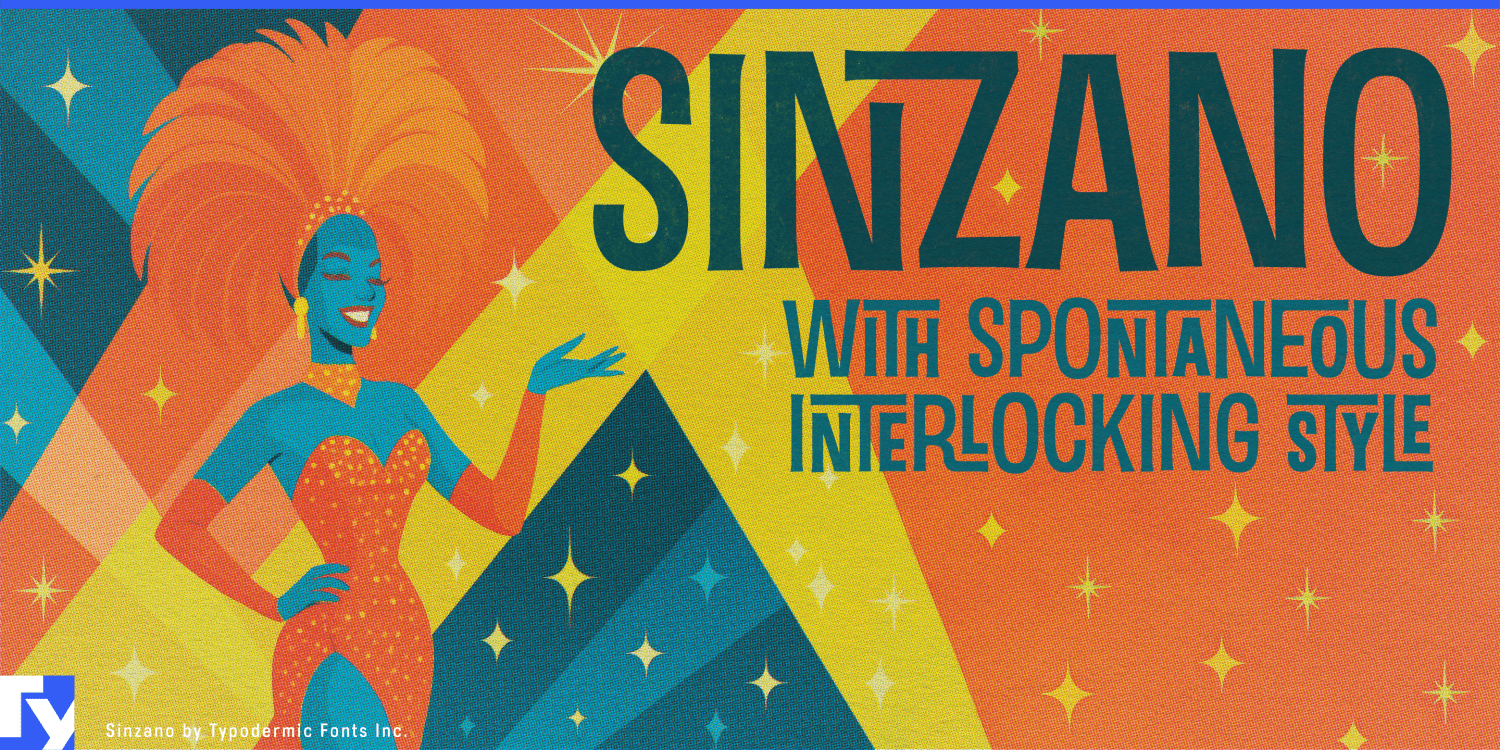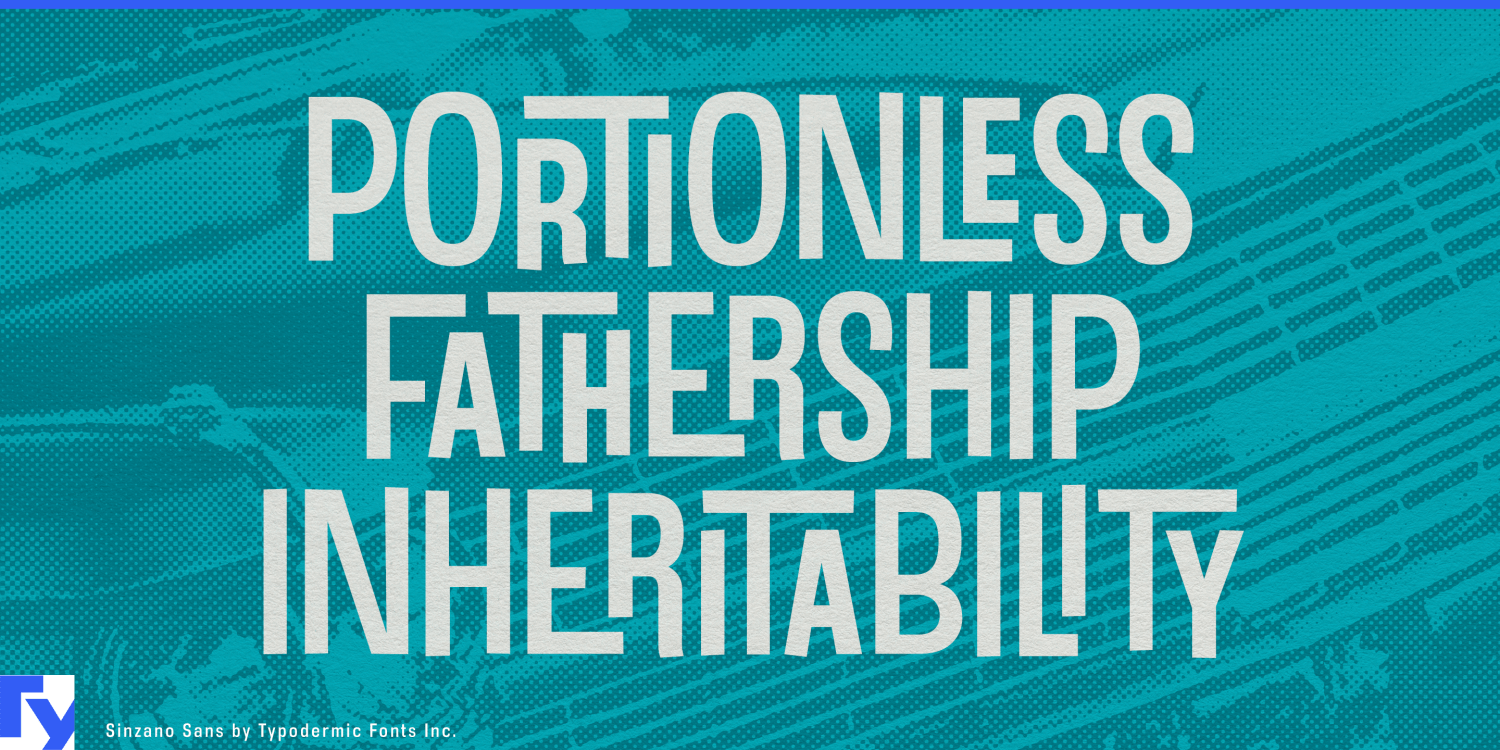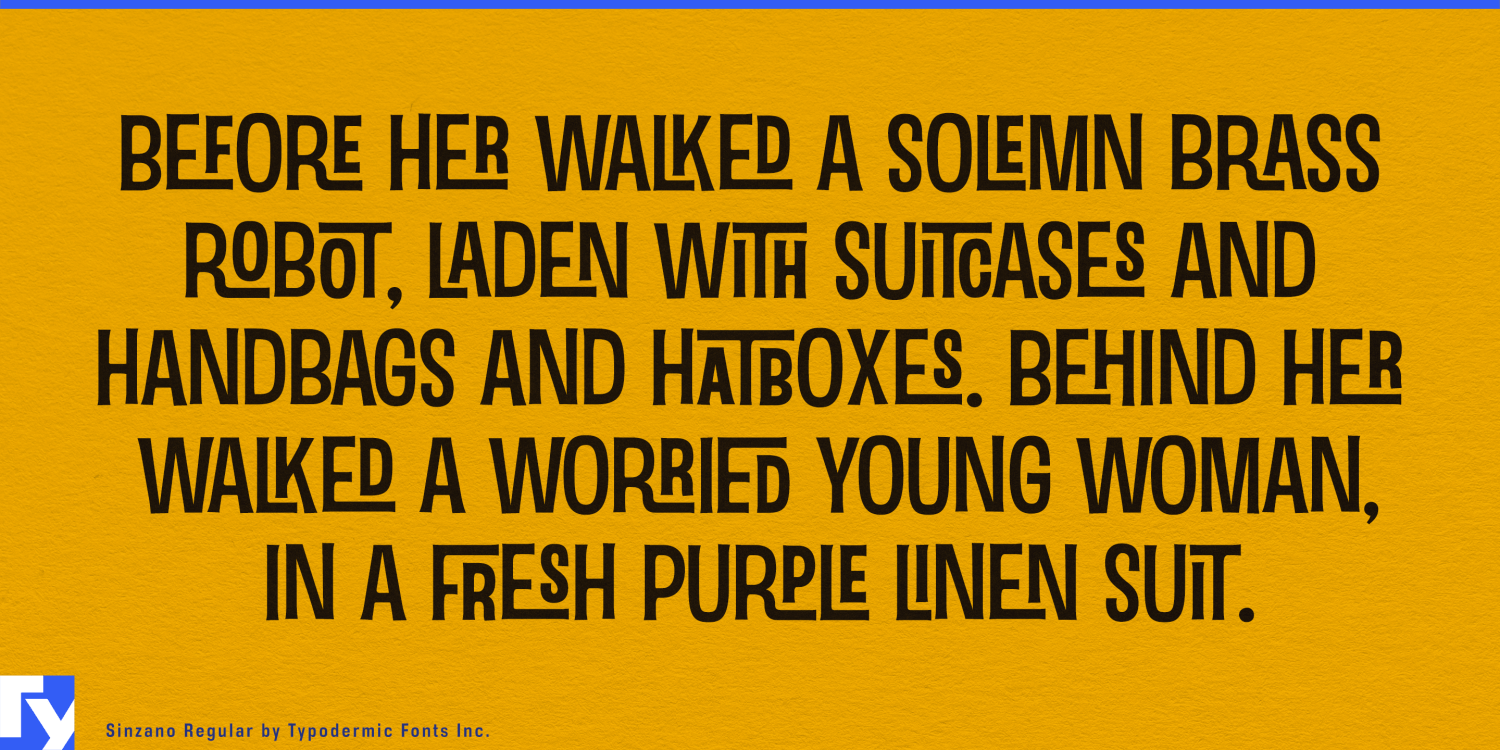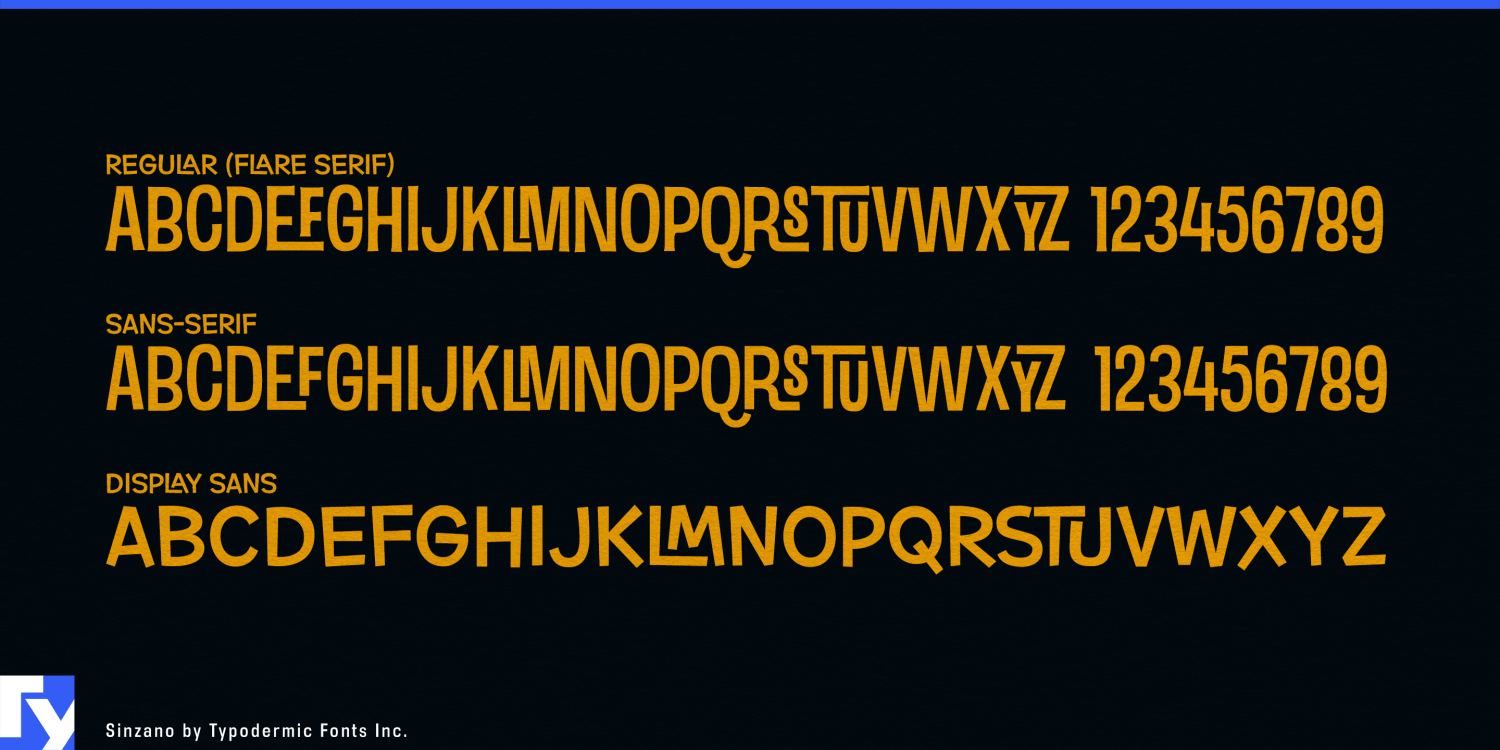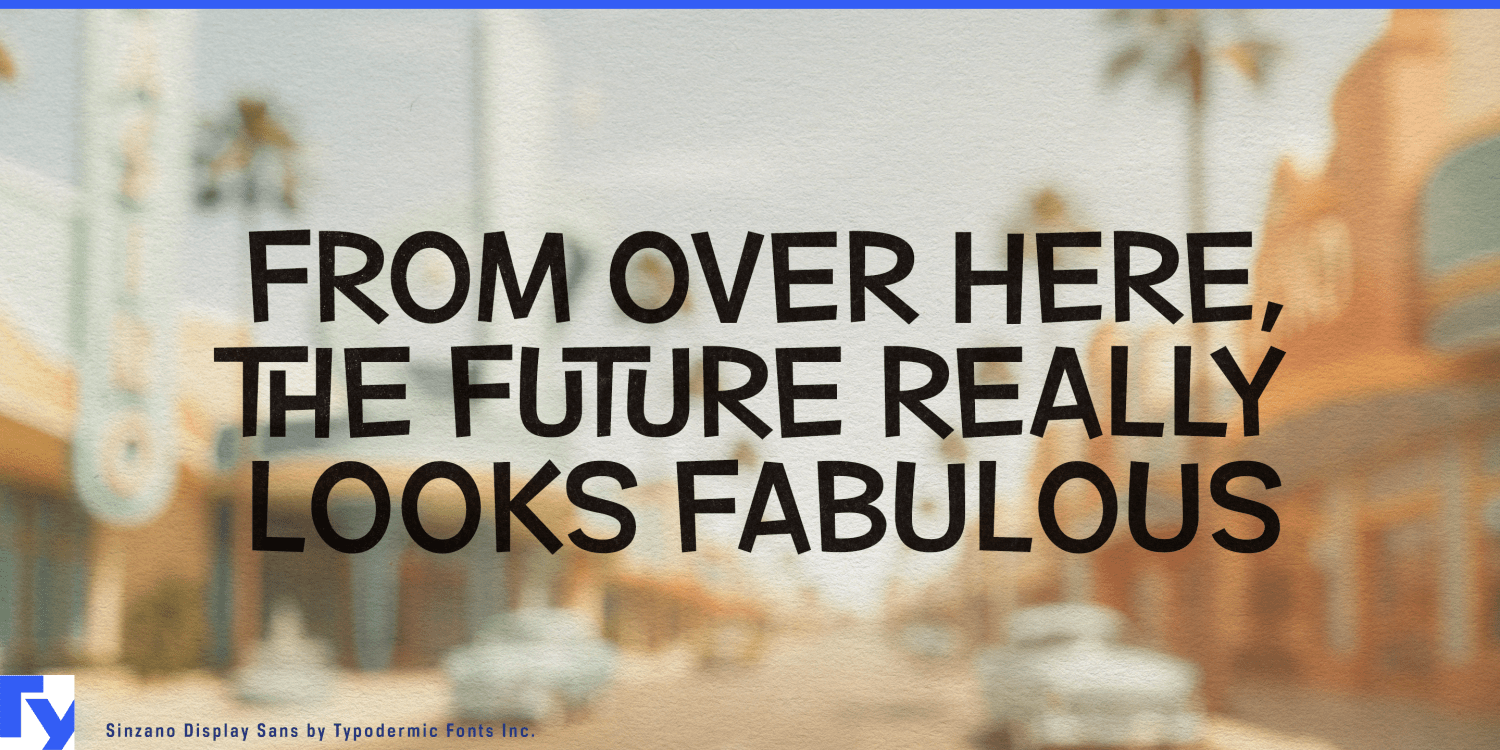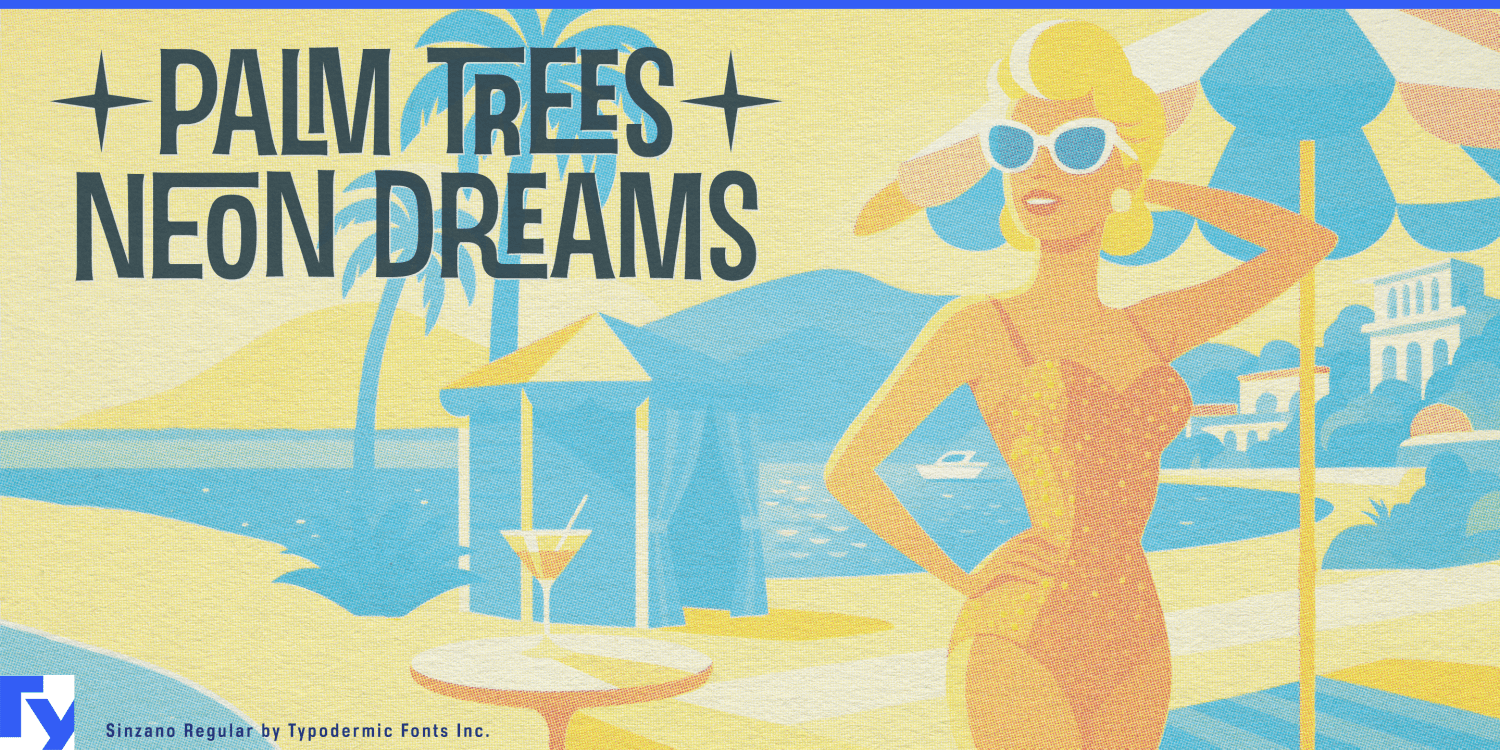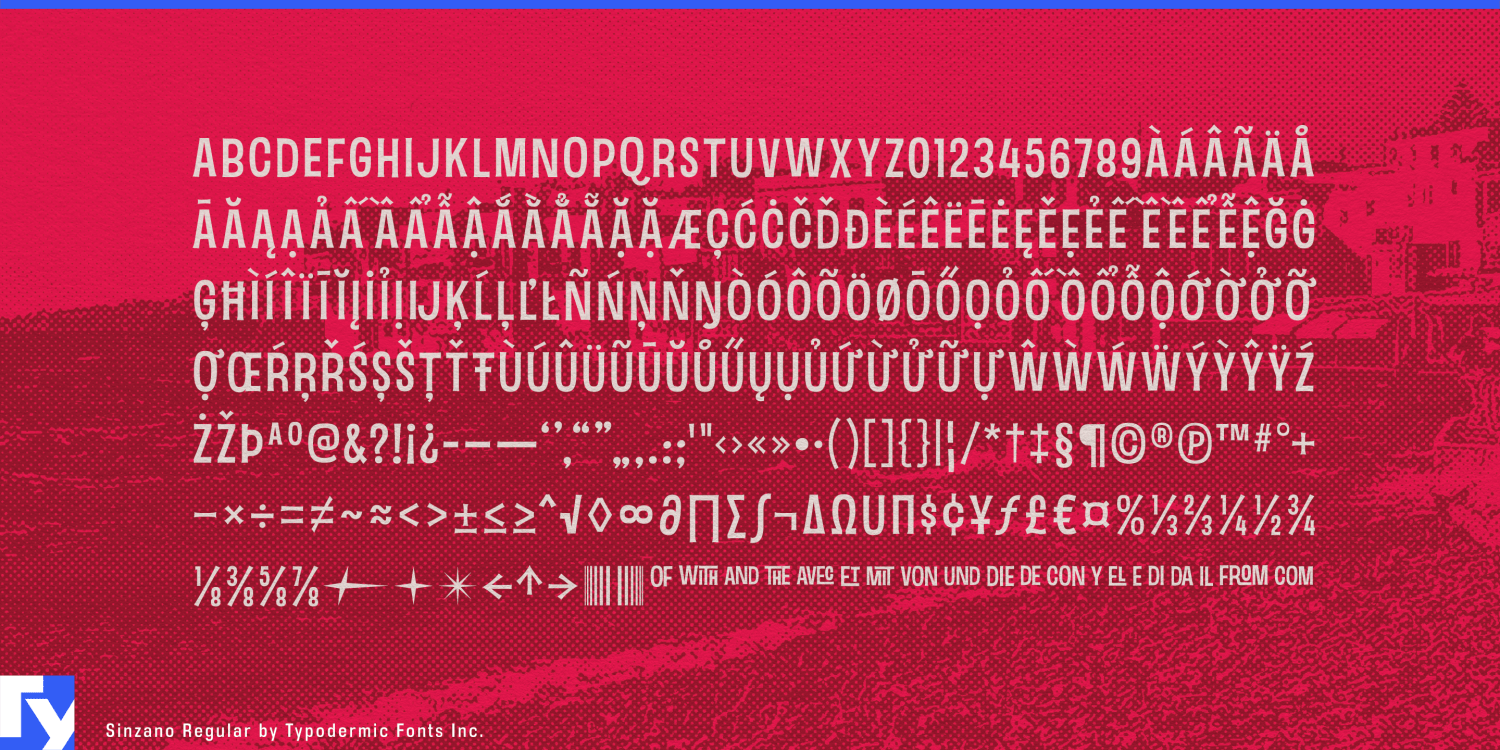
Sinzano
Buy NowSinzano is built for names that need to feel composed rather than simply typed. Its interlocking letter combinations pull neighboring forms into tight arrangements, turning short words into compact pieces of lettering with the character of a custom lockup. The idea came from 1960s and 1970s jazz and lounge record sleeves, where closely fitted display lettering was often assembled specifically for the title rather than set from an ordinary typeface.
That technique gives Sinzano a useful life beyond its historical source. In hospitality branding, the name of a venue often has to carry much of the identity on its own. Cocktail bars, rooftop lounges, supper clubs, members’ clubs, casino-resort venues, destination restaurants, and live-music rooms can use Sinzano for the distinctive naming layer while a quieter companion face handles reservations, menus, wayfinding, and practical information. On an entrance sign, glass graphic, drinks menu, hotel directory, or campaign image, the interlocks make the name feel deliberately fitted to the space.
Premium drinks offer a similar opportunity. Aperitifs, vermouths, liqueurs, cocktail mixers, limited releases, and sophisticated non-alcoholic drinks often depend on the product name as a major part of the label. Sinzano can give each variety a different word shape while keeping the range visibly related across bottle labels, gift cartons, bar displays, launch campaigns, and hospitality partnerships.
The effect is particularly useful for sub-brands inside larger destinations. A hotel may contain a rooftop bar, restaurant, lounge, spa, and entertainment venue, each needing an identity of its own without becoming disconnected from the parent property. Sinzano can give those named spaces a recognizable signature while the hotel’s main typography continues to handle the systematic work. The same approach suits cruise-ship venues, theatre bars, casino lounges, cabaret rooms, and other entertainment spaces where the name appears repeatedly across signage, menus, event graphics, and promotional material.
Cultural events can use the historical association more directly without becoming period reproductions. Jazz festivals, film festivals, performing-arts seasons, nightlife programs, and exhibitions dealing with music or postwar design can make the title itself an active part of the composition. Because different letter combinations produce different interlocks, Sinzano works especially well when a campaign needs several related event names rather than one fixed wordmark.
There is also room for the same composed-name effect in fragrance collections, jewelry campaigns, beauty ranges, and fashion capsules. Sinzano can turn a short product name into a compact arrangement that feels more tailored than neutral sans-serif typography and less personal than handwriting.
Sinzano’s slender forms keep the interlocks from becoming heavy. The original flared version carries more of the jazz-era flavor, while Sinzano Sans lets the close-fitting structure come forward more directly. In either case, the important feature is composition: the letters respond to their neighbors, and the word becomes the design.